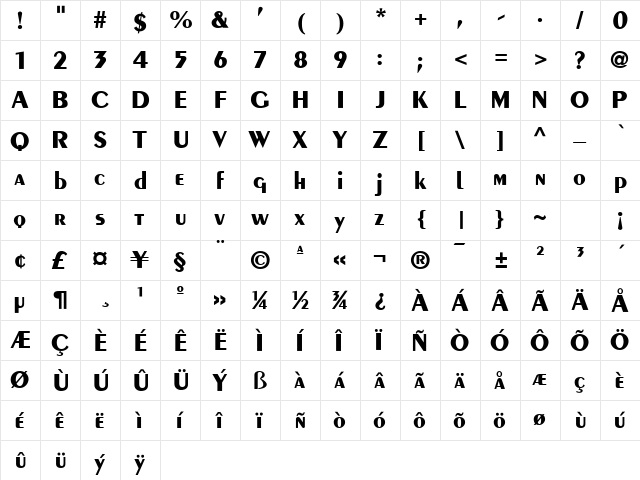
Penoir Bold
Design Context for Penoir Typeface
Penoir offers clean, dependable letterforms without strong stylistic allegiance, making it a practical choice for designers who need flexibility. Its bold stroke weight gives it real presence on the page.